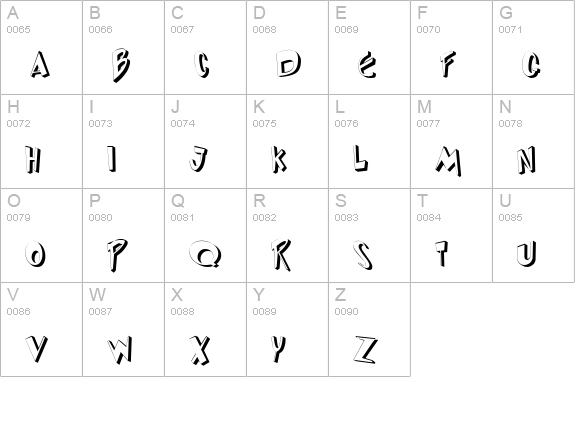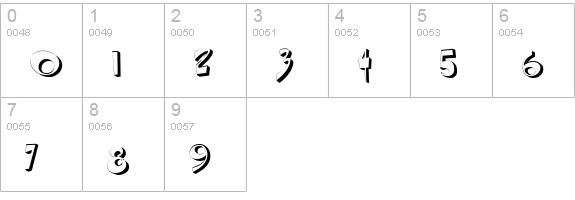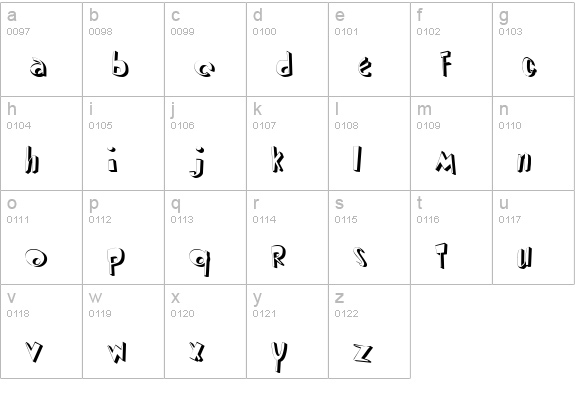
DiPed Thick Font Details
Introducing DiPed Thick font - a bold and eye-catching typeface designed to make a statement in your projects. With its thick, robust letterforms, DiPed Thick exudes confidence and strength, perfect for headlines, titles, and branding materials. This versatile font strikes the perfect balance between modernity and sophistication, making it ideal for a wide range of design applications. And the best part? DiPed Thick font is completely free to download at FontsMarket.com! Don't miss out on this opportunity to enhance your designs with a striking and impactful typeface that will surely leave a lasting impression. Download DiPed Thick today and let your creativity shine!